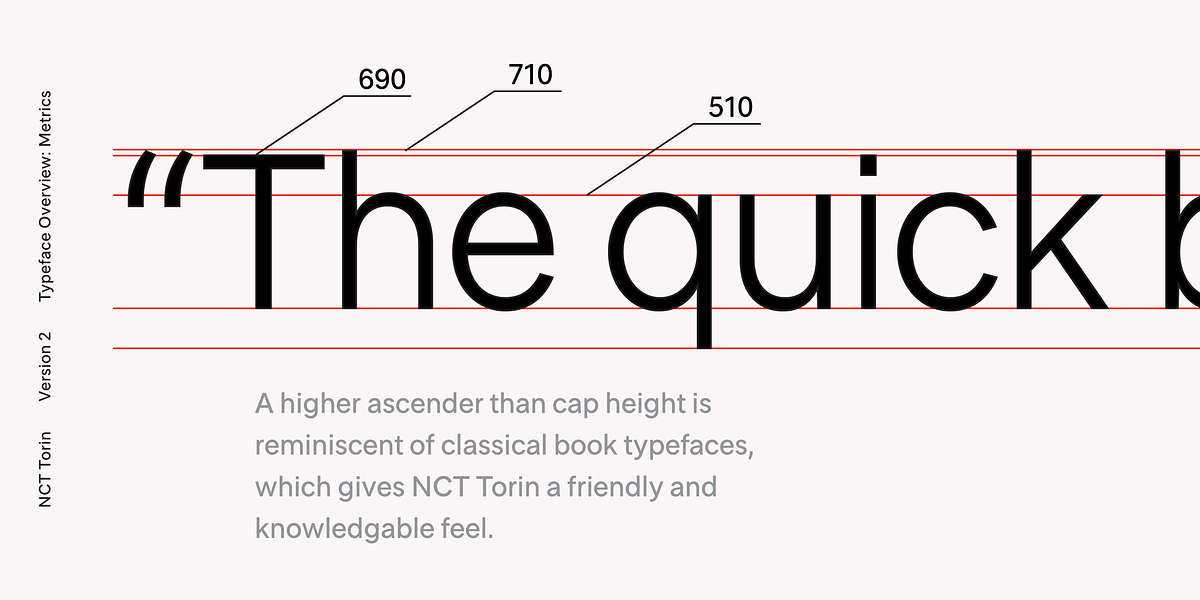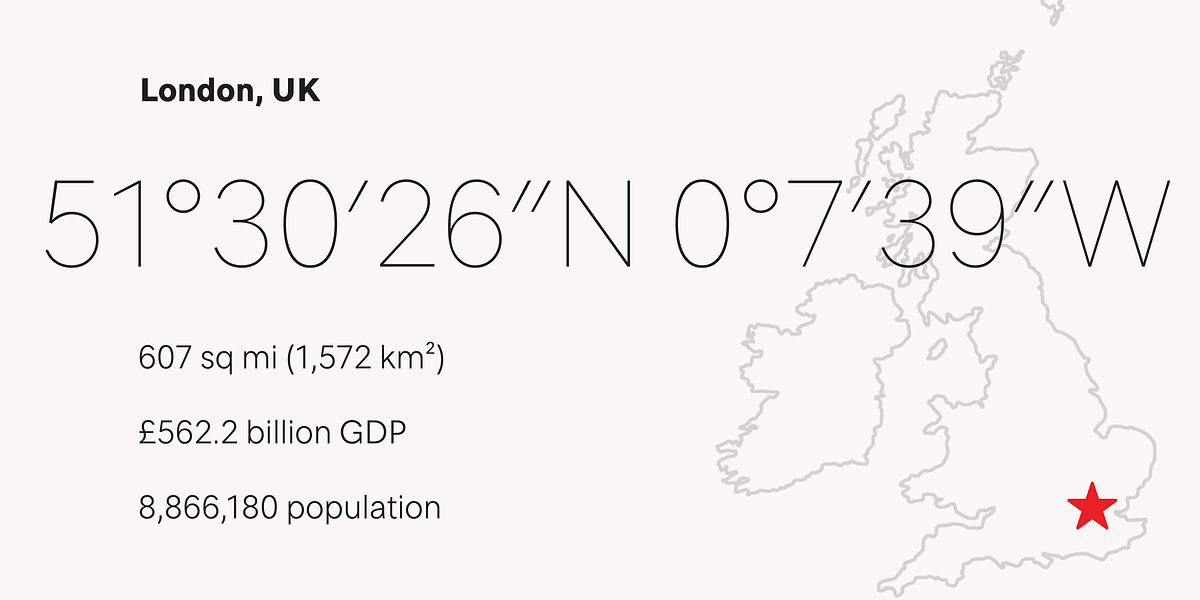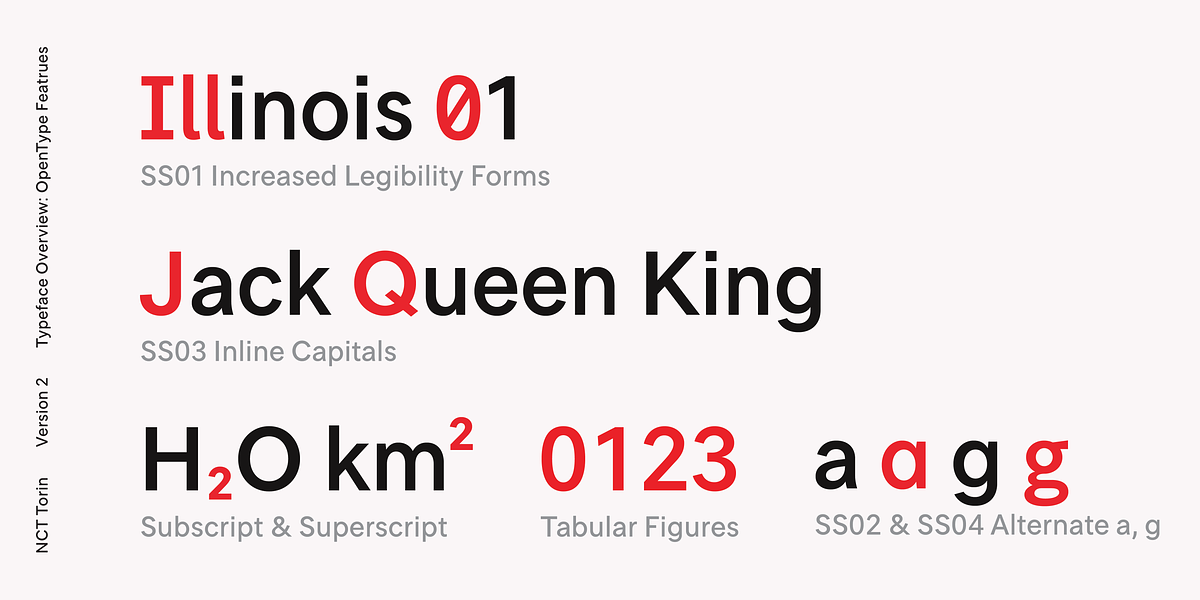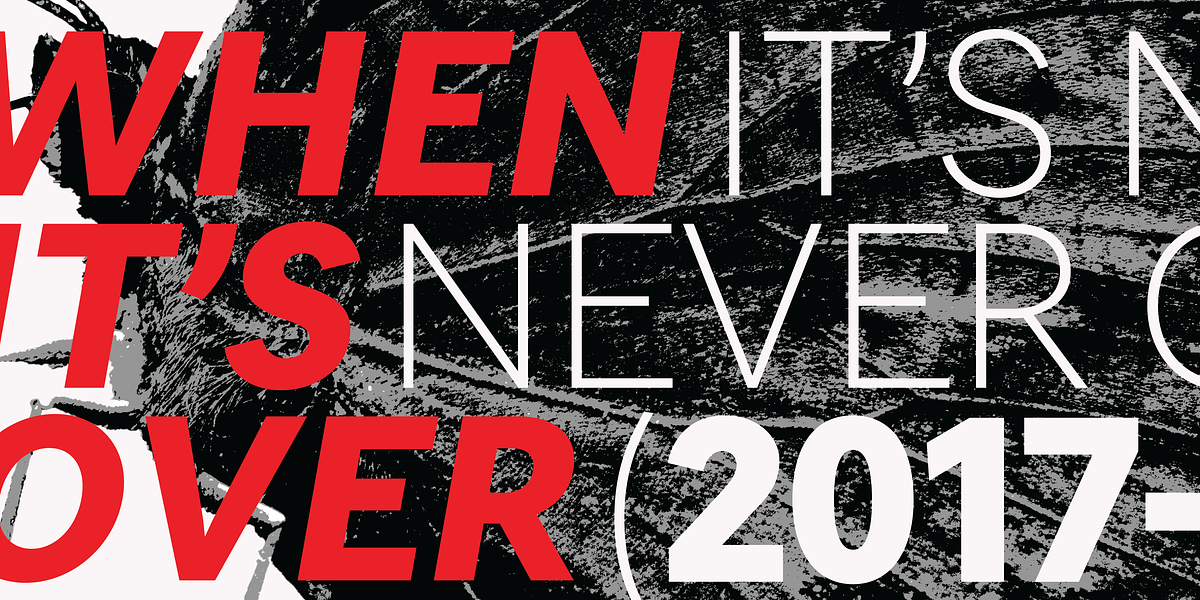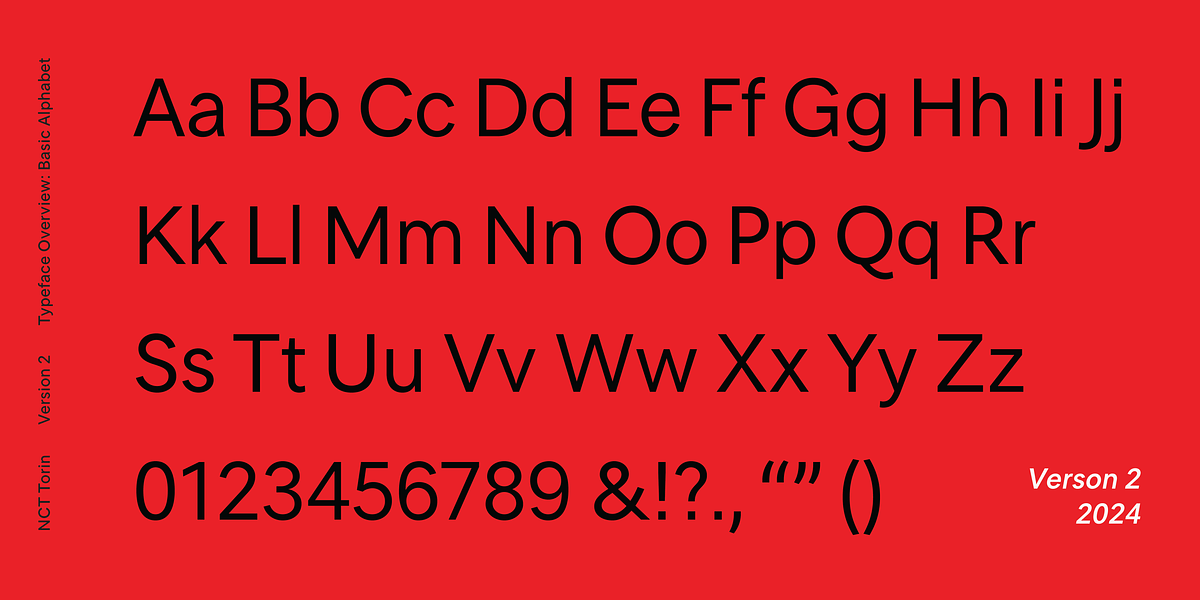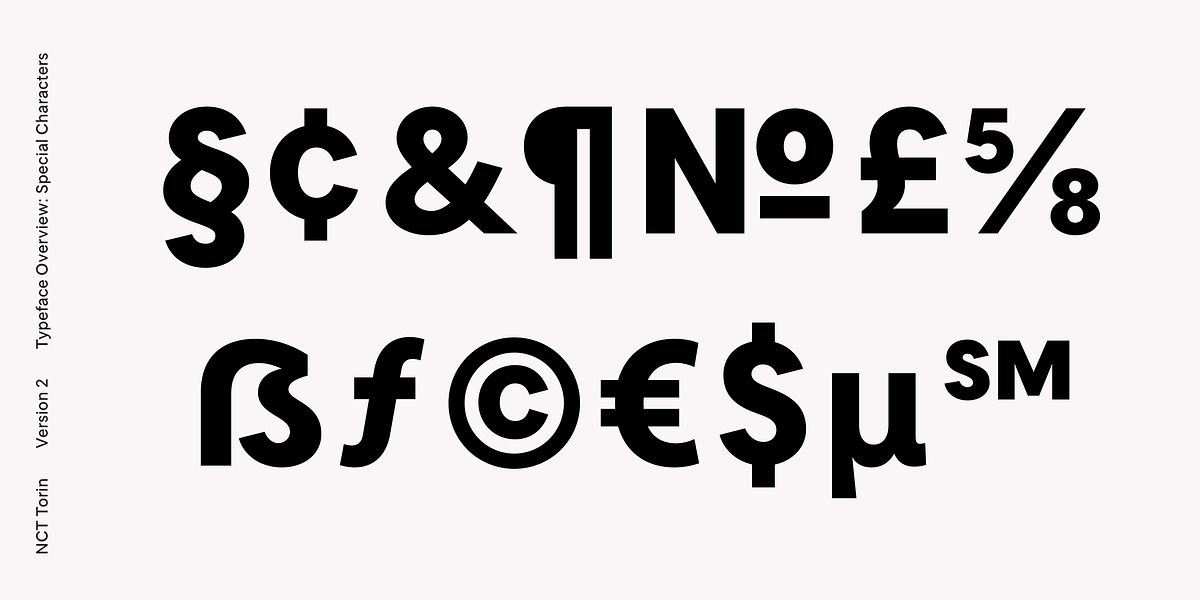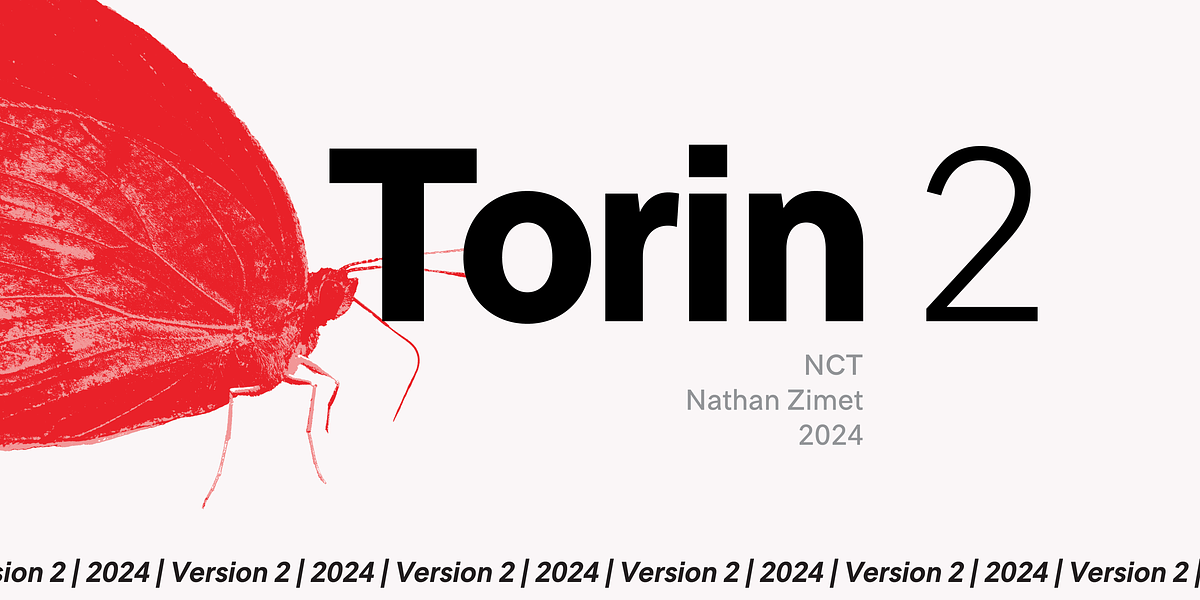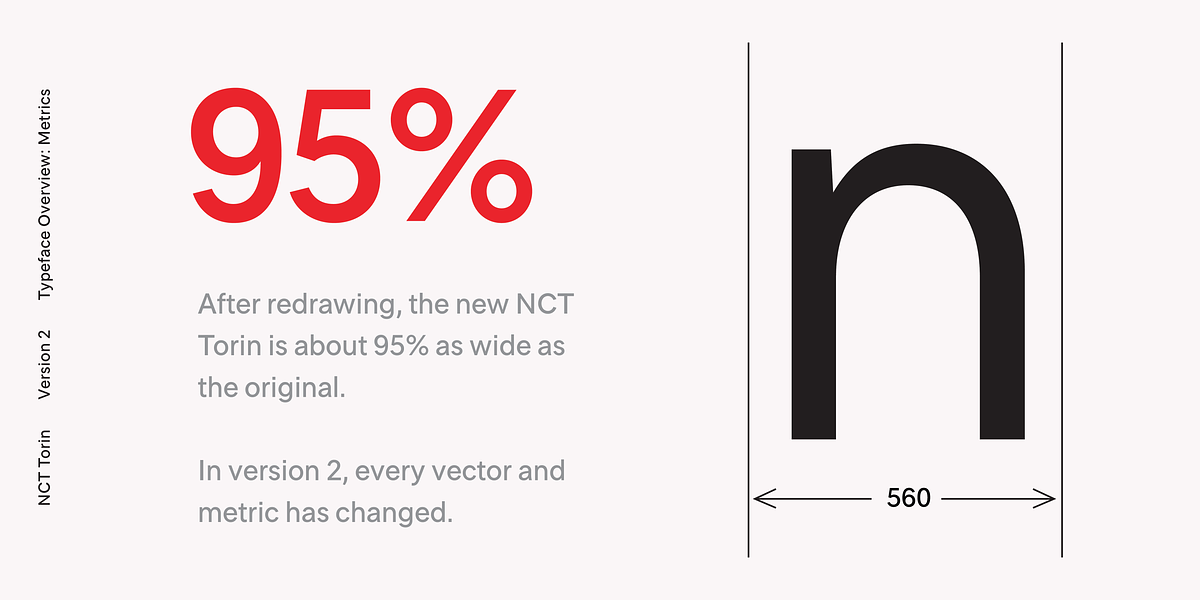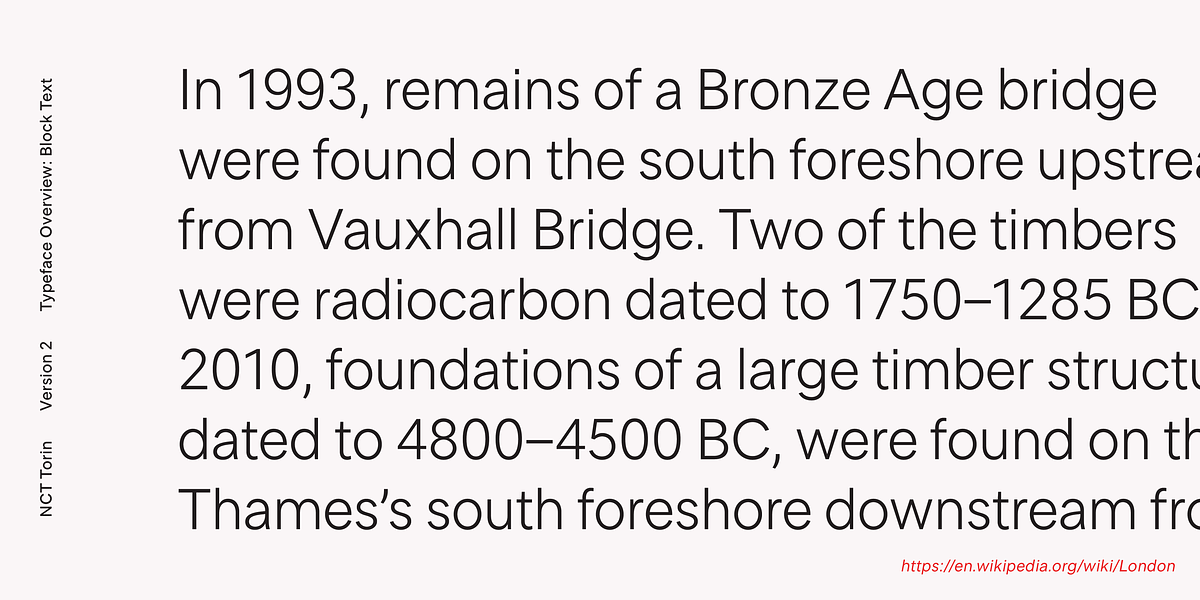
NCT Torin 2
NCT Torin 2 is a redesigned version of the original NCT Torin font. It features a geometric sans-serif style with soft forms, inspired by classical book typography. The font has been rebalanced to include nine weights with matching obliques, totaling 18 styles. Its friendly and knowledgeable feel comes from its unique blend of geometric shapes and traditional typographic elements. Descending characters like 'J' and 'Q' are styled similarly to Caslon or Garamond typefaces, while the ascender height is taller than the cap height, a trait common in serifed book fonts. This combination results in a versatile font suitable for both long-form text and display purposes.